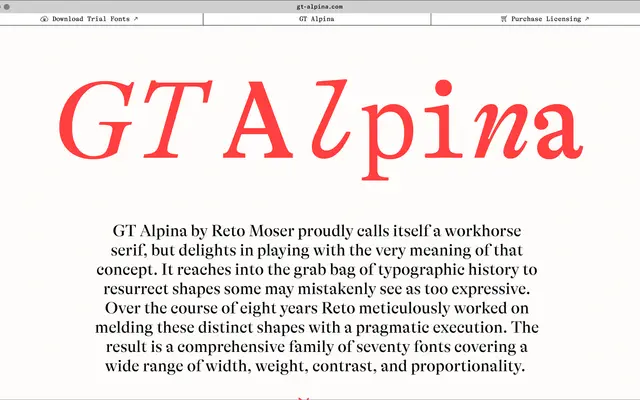
GT Alpina
Grilli Type · Reto Moser · 2020
A workhorse serif by Reto Moser that revives expressive historical shapes inside a pragmatic 70-style system.
A serif family by Reto Moser, released in 2020 and available in 70 styles. Grilli pitch it as a workhorse that delights in playing with the term, melding distinct historical shapes with a pragmatic execution. The family spans Condensed, Standard and Extended widths plus matching Fine cuts for display and a Typewriter set, with alternates for J, ?, & and @.
Grilli call it a workhorse serif that plays with the meaning of the term, reaching into typographic history to resurrect shapes some may see as too expressive and pairing them with a pragmatic execution.